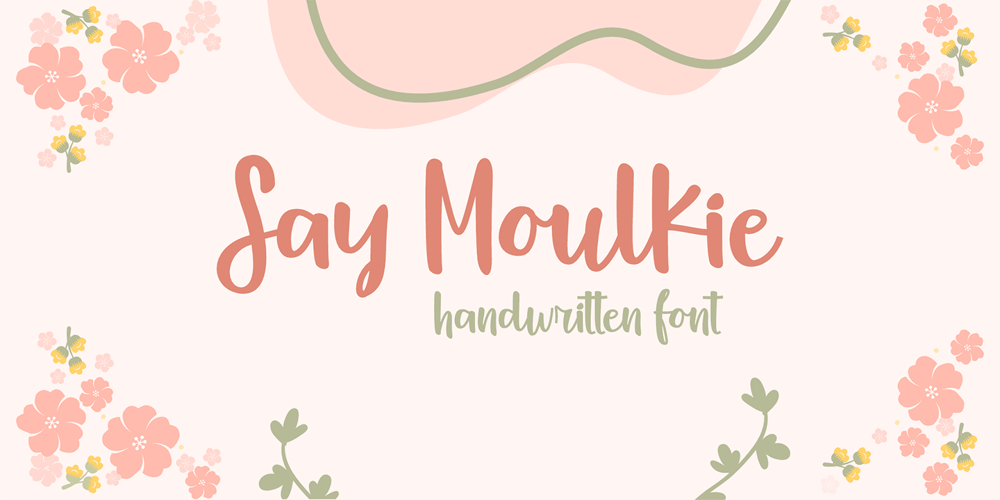
Say Moulkie Font Family was designed by Raditya Putra Pratama and published by Raditya Type. Say Moulkie contains 1 styles and family package options. Say Moulkie is a captivating handwritten font that exudes warmth and personality. Its fluid, natural design creates an authentic feel, as if penned directly by human hand. The beautifully flowing lines provide an elegant touch while remaining friendly and highly legible.This versatile font suits a wide range of creative projects – from invitation designs and logos to branding and social media content. Its uniqueness lies in the perfect balance between casual style and professional appeal.Say Moulkie will add a personal touch to all your work, making messages feel more intimate and sincere to your audience. With its dynamic line weight variations, this font offers unlimited flexibility and expression.Choose Say Moulkie to bring warmth and authenticity to your designs. It’s the perfect investment for designers and creators looking to make their work stand out with an unmatched human touch. Let Say Moulkie breathe life into your typography and connect with your audience on a deeper level.